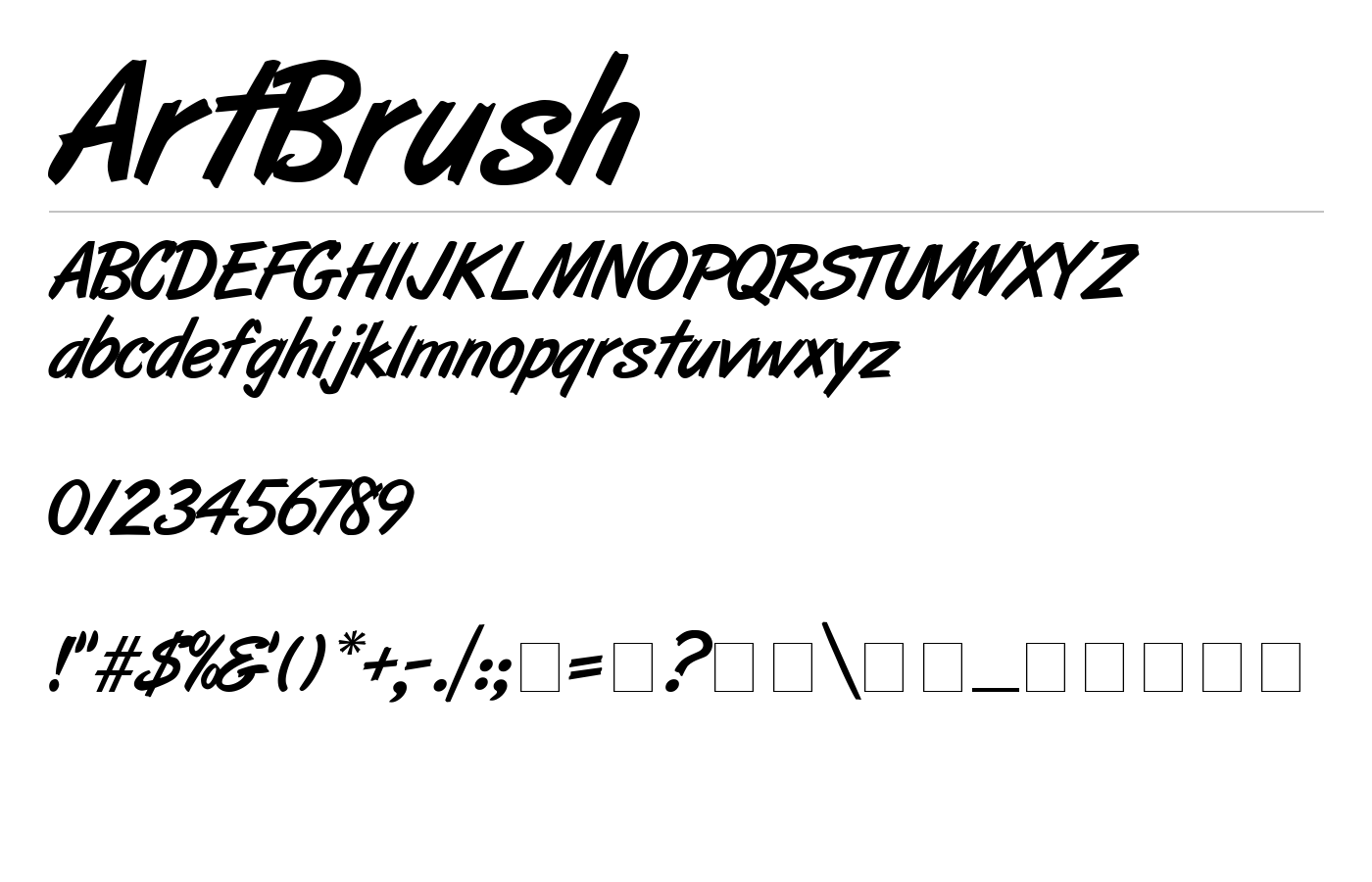
ArtBrush is a dynamic, brush-style script font with a bold weight and lively slant that mimics natural hand-painted strokes. Its energetic, slightly rough edges convey a creative and informal feel, making it great for artistic branding, posters, and eye-catching headlines where a personal, expressive touch is desired. This font works well in designs that need a sense of movement and spontaneity, adding character and warmth to visual communication.
ArtBrush Font
About ArtBrush Font